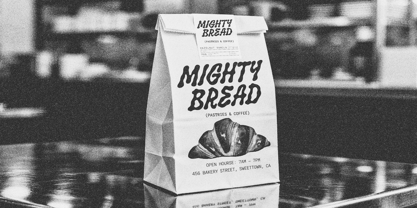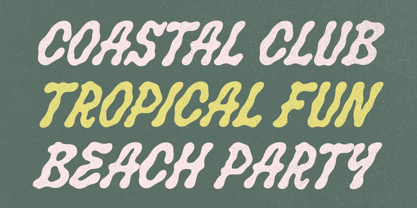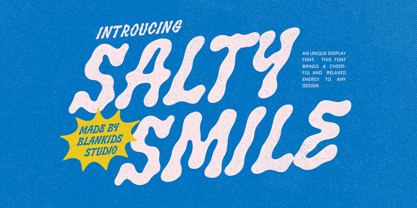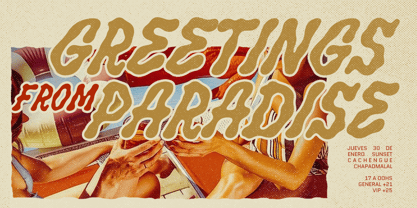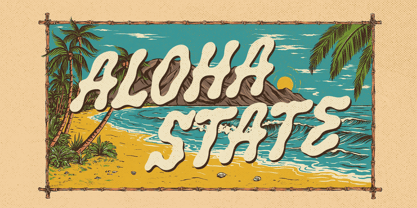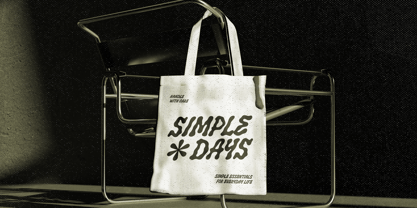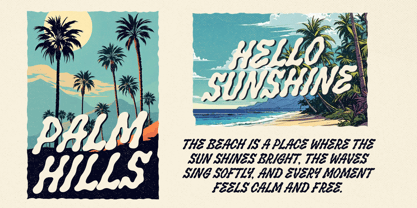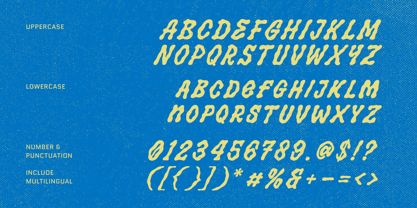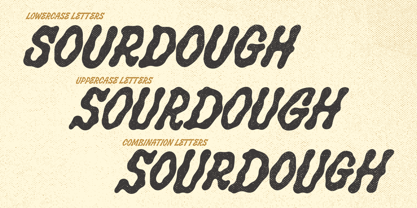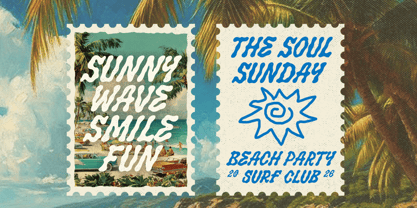
Salty Smile
by Blankids
The Salty Smile Font Family was designed by Bangkit Tri Setiadi and published by Blankids. Salty Smile contains 1 styles. More about this family
Salty Smile is a playful and cheerful display font inspired by sunny beach days, ocean waves, and relaxed tropical vibes. With its soft, wavy shapes and bold personality, this font instantly brings a fun and friendly atmosphere to any design. The organic letterforms feel smooth and flowing, just like the rhythm of the sea, making it perfect for projects that want to capture a happy, carefree mood. Designed to stand out, Salty Smile works beautifully for branding, packaging, posters, tote bags, beach-themed designs, social media graphics, and retro-inspired layouts. Its unique bubbly style adds a touch of warmth and positivity, making your designs feel lively and memorable. Whether you’re creating summer graphics, surf club posters, tropical branding, or fun merchandise, Salty Smile delivers a fresh coastal energy that makes every design feel bright and full of life.